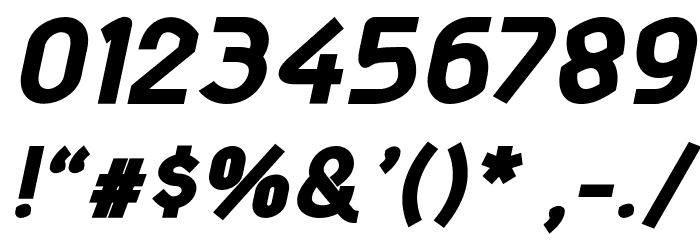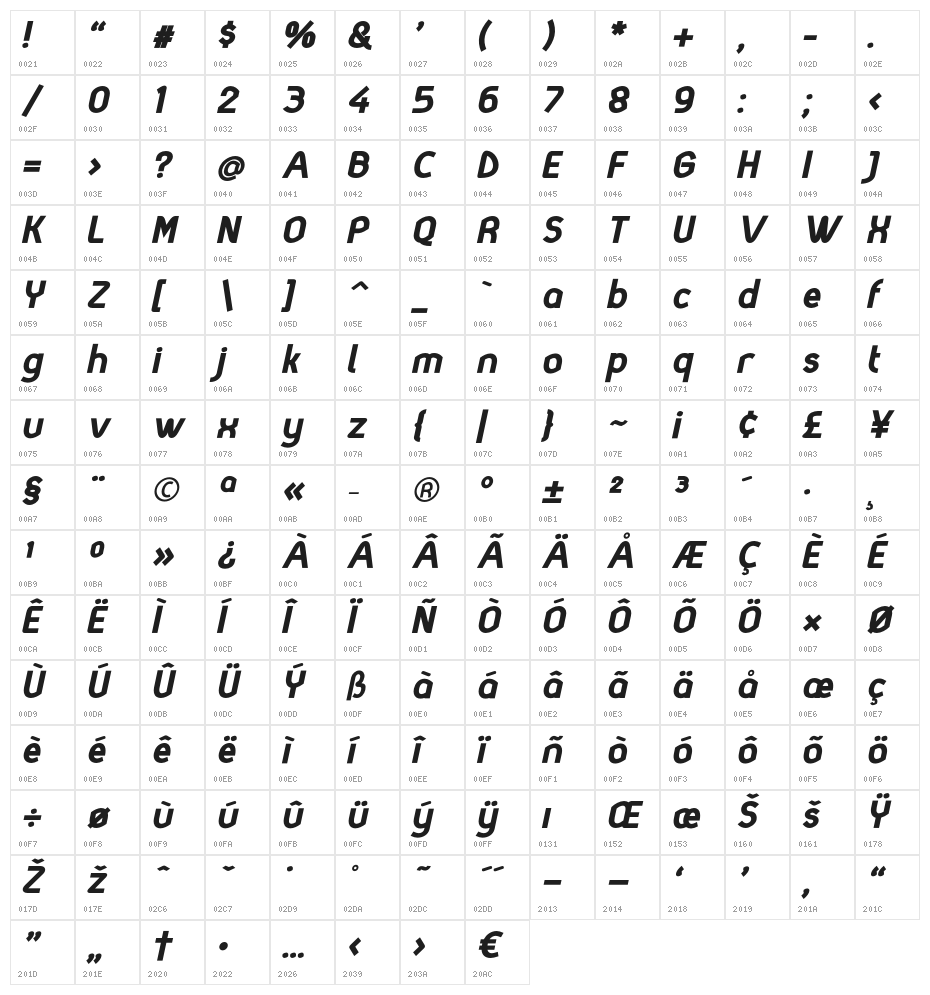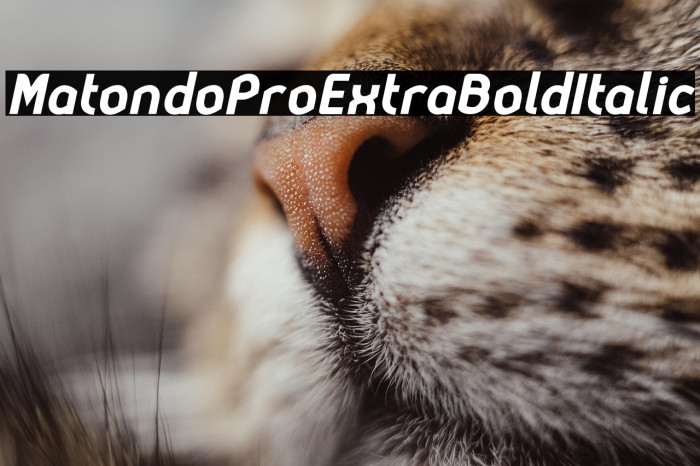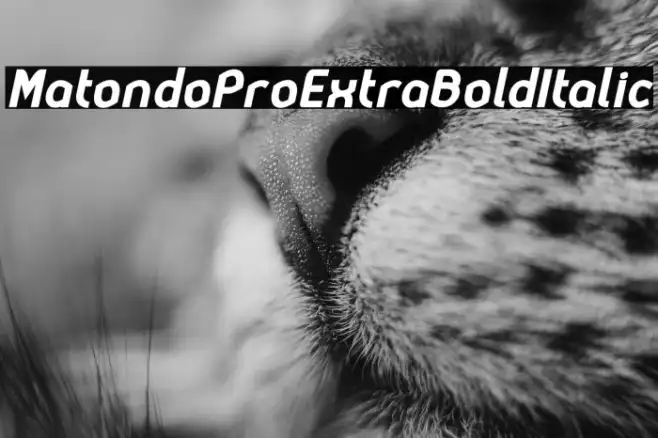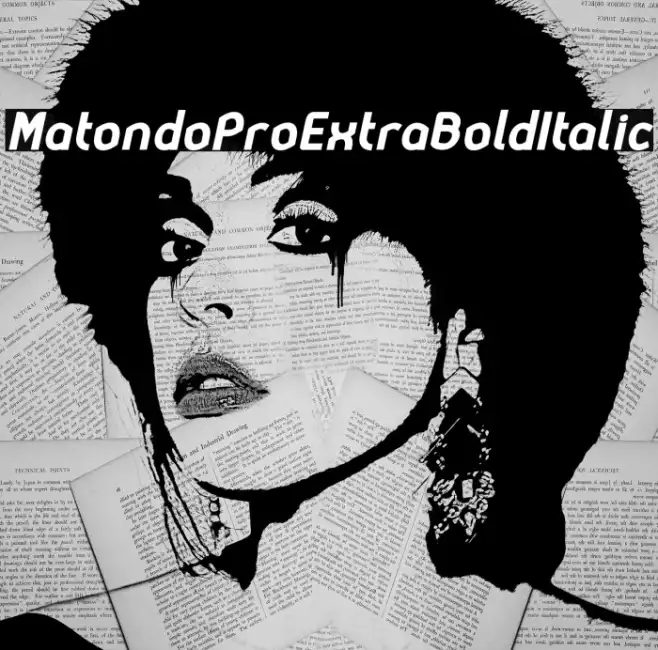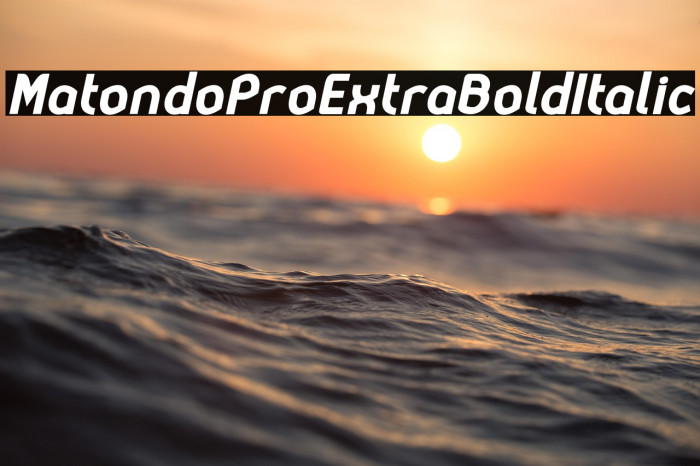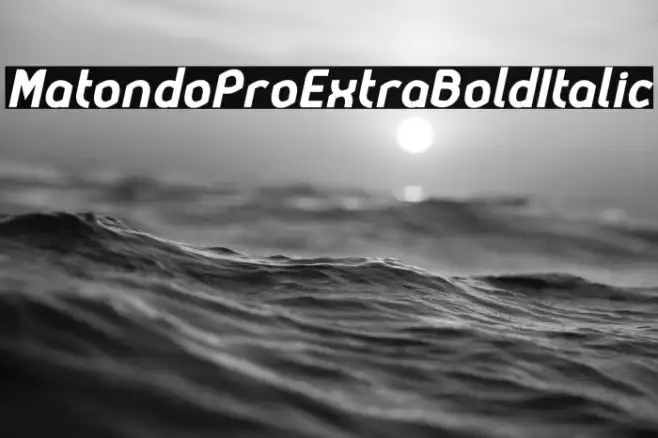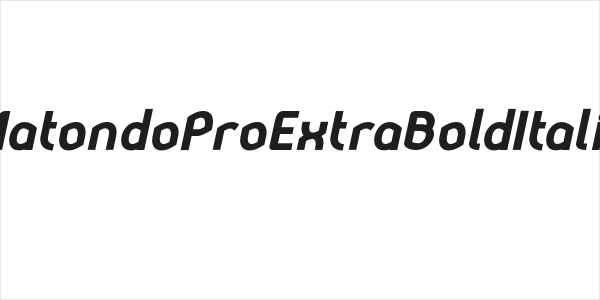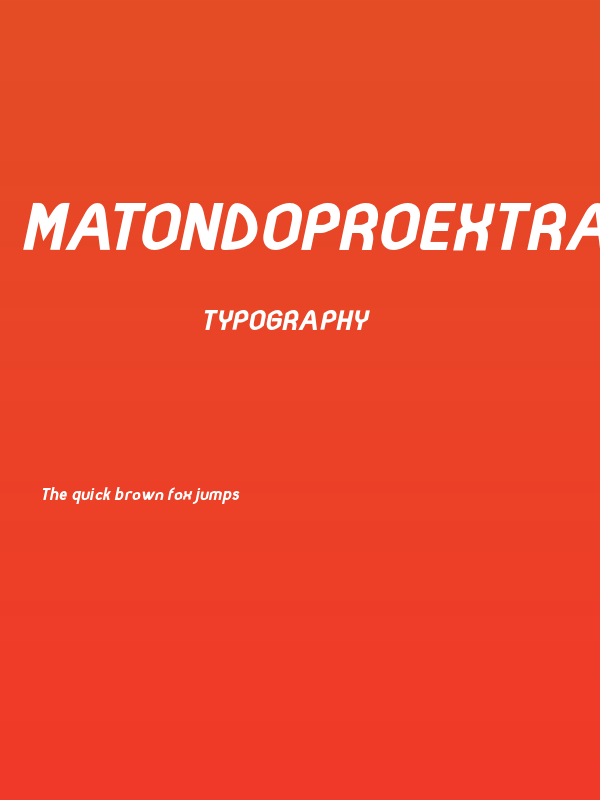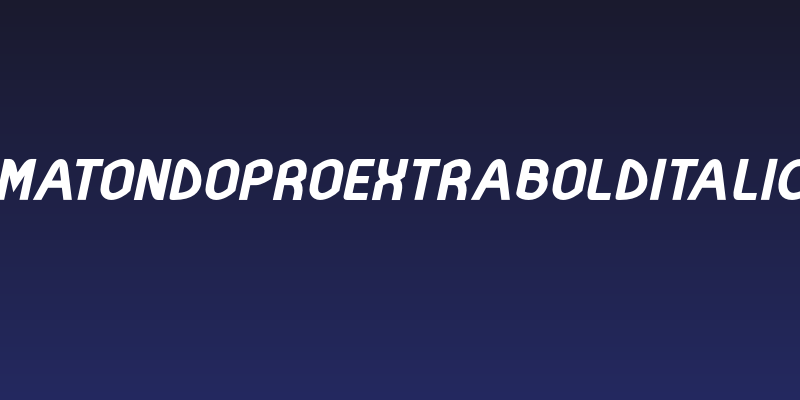
MatondoProExtraBoldItalic Font
MatondoProExtraBoldItalic Description
This font features a bold and dynamic style with a pronounced italic slant, giving it a sense of motion and energy. The characters are thick and robust, making them highly visible and impactful. The design is modern and sleek, with smooth curves and sharp angles that create a sense of forward movement. The uppercase and lowercase letters maintain a consistent weight, ensuring readability and uniformity across text. Numbers and special characters are designed with the same boldness and italic slant, ensuring they integrate seamlessly with the alphabetic characters. This font is ideal for projects that require a strong and contemporary aesthetic.
| Use Case | Headlines, Logos, Advertising |
| Proposed Projects | Ideal for branding, advertising, headlines, and any project requiring a strong visual impact. |